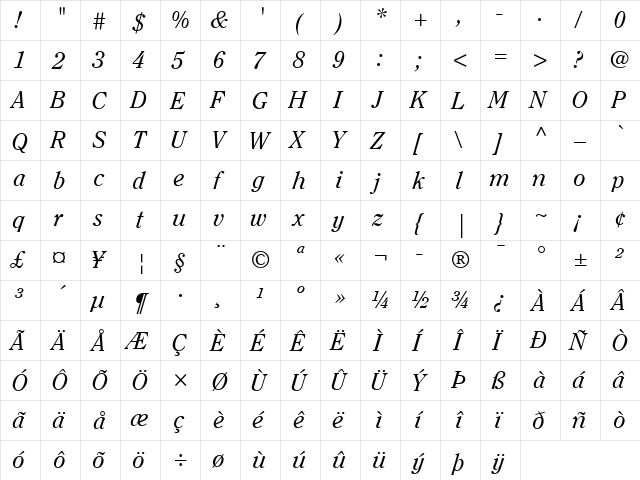
Clearface LT Regular Italic Font Preview
Design Context for Clearface LT Regular Typeface
Clearface LT Regular offers clean, dependable letterforms without strong stylistic allegiance, making it a practical choice for designers who need flexibility. Its italic angle brings a sense of urgency and motion to the letterforms. The delicate stroke weight brings airiness and refinement to layouts.
Pro Tip: Try Clearface LT Regular for annotation and caption copy alongside an upright companion — the contrast in angle creates a dynamic but ordered typographic system.